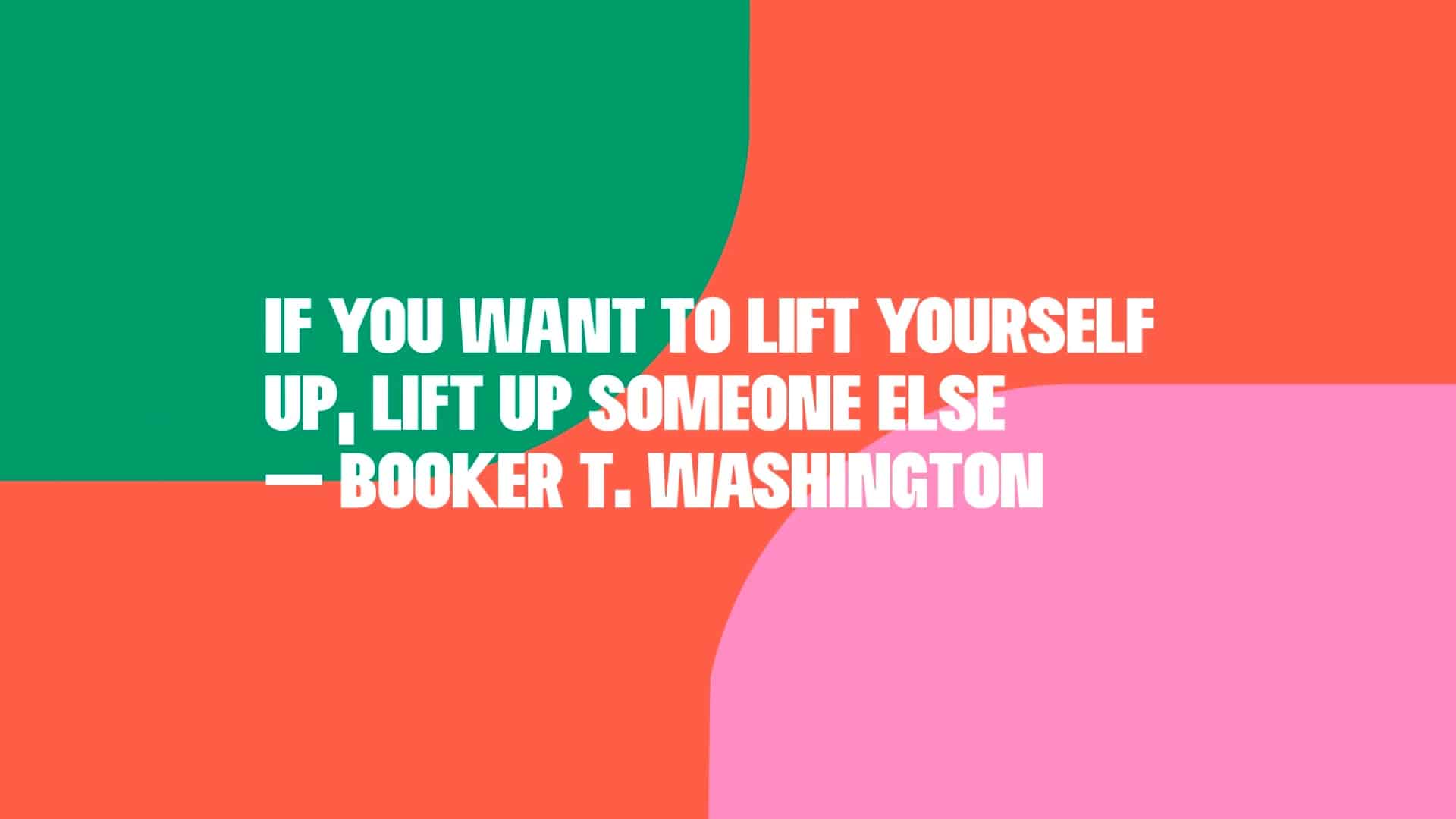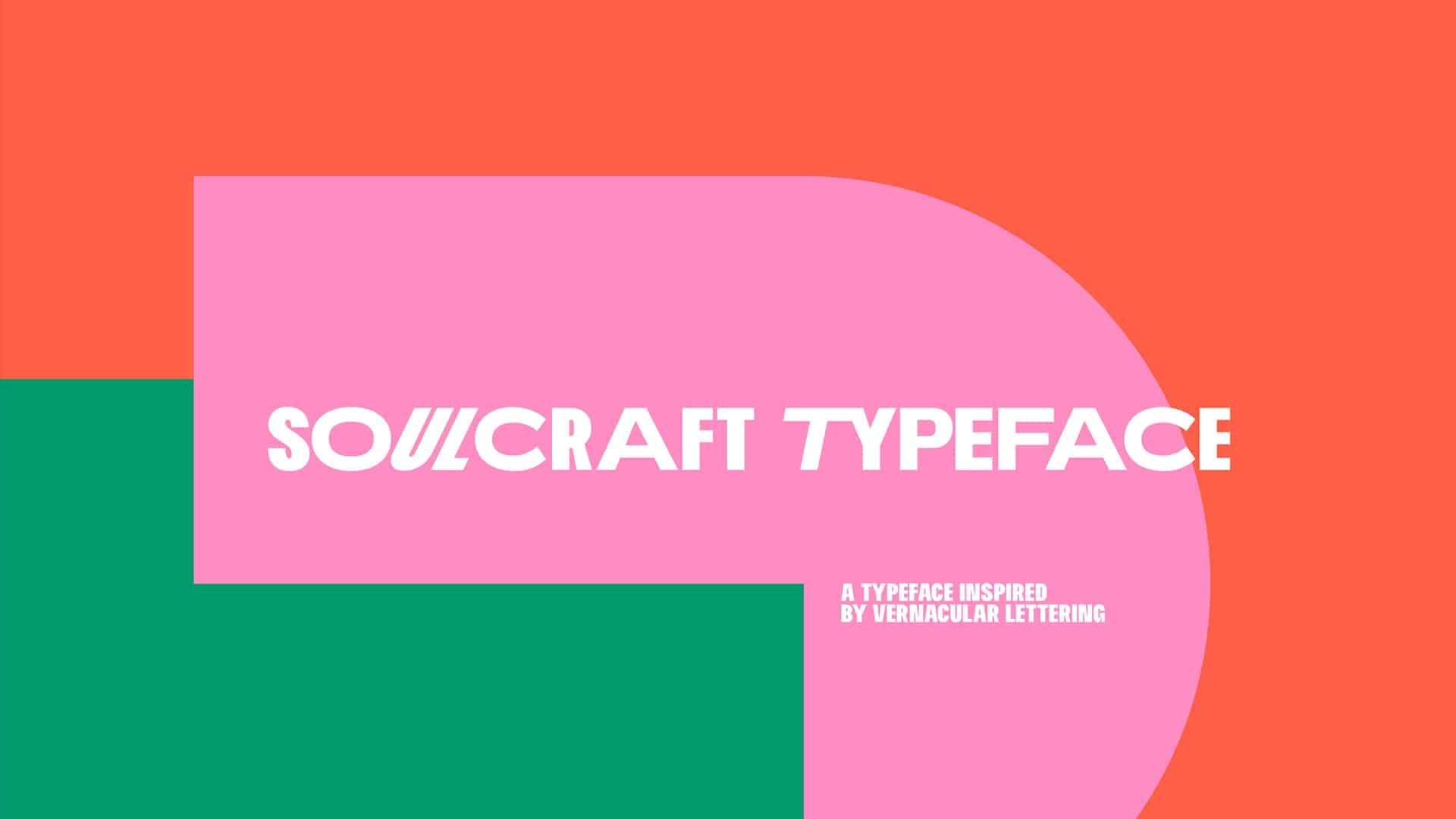
Soulcraft Font
Soulcraft Font falls into the category of the expended fonts. This is a space typeface that is quite similar to the rhythmic font and it is available for free. Its brand is being attentive to lower another time to medieval placed up sorts but extra sweeping geometric. This makes for charmingly considered in reality one in each form of someone that aligns perfectly, irrespective of the fact that used at wonderful sizes.
But, that is probably a clean searching and actually strong font in case you want to offer you the effects you need. It’s miles been included as pt serif font and is one of the uncommon fonts for the well-known format. Soulcraft Font Free Which makes it final for designing trademarks for startups, net pages, and present-day producers. The font is available in 2 versions: public and order.
A sans-serif font that is similar to britany font from tool-kind foundry based totally on the concept of its letterforms feature circles which might be almost however no longer as a possible final. Download Moreover, additives have one hundred glyphs and 100 change characters. The font includes all characters in every uppercase and lowercase letters. It measures a current-day-day wink deep font with a beneficial aid of a futuristic layout.
This font is exceptional for crafting a laugh way posts, t-shirts, net community detail online headers, and within the room.